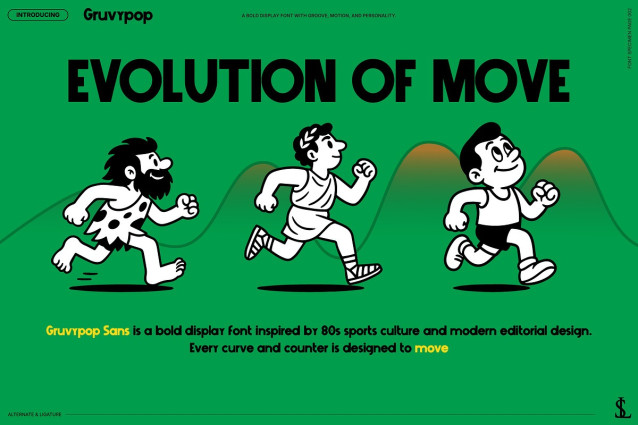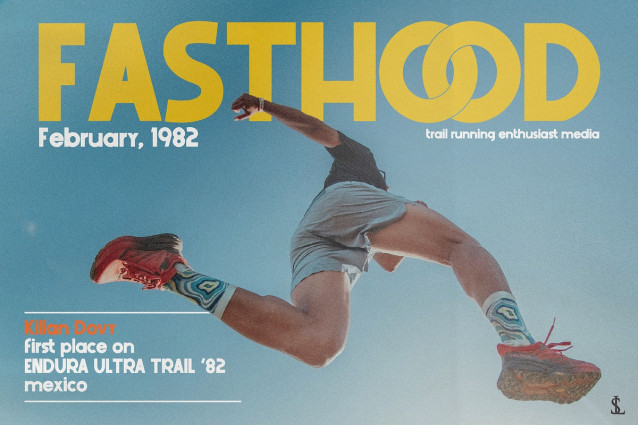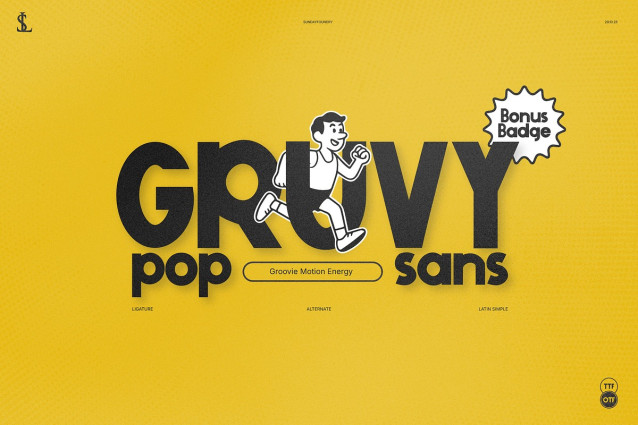
Gruvy Pop Sans Font
Gruvy Pop Sans Font is a bold display font inspired by 80s sports culture and modern editorial design. Every curve and counter is designed to move — bringing rhythm, energy, and attitude to your typography. Gruvy Pop blends retro athletic charm with geometric structure, creating a font that feels both nostalgic and fresh.